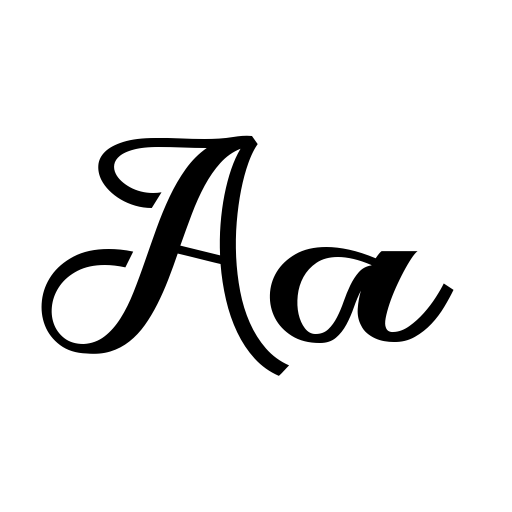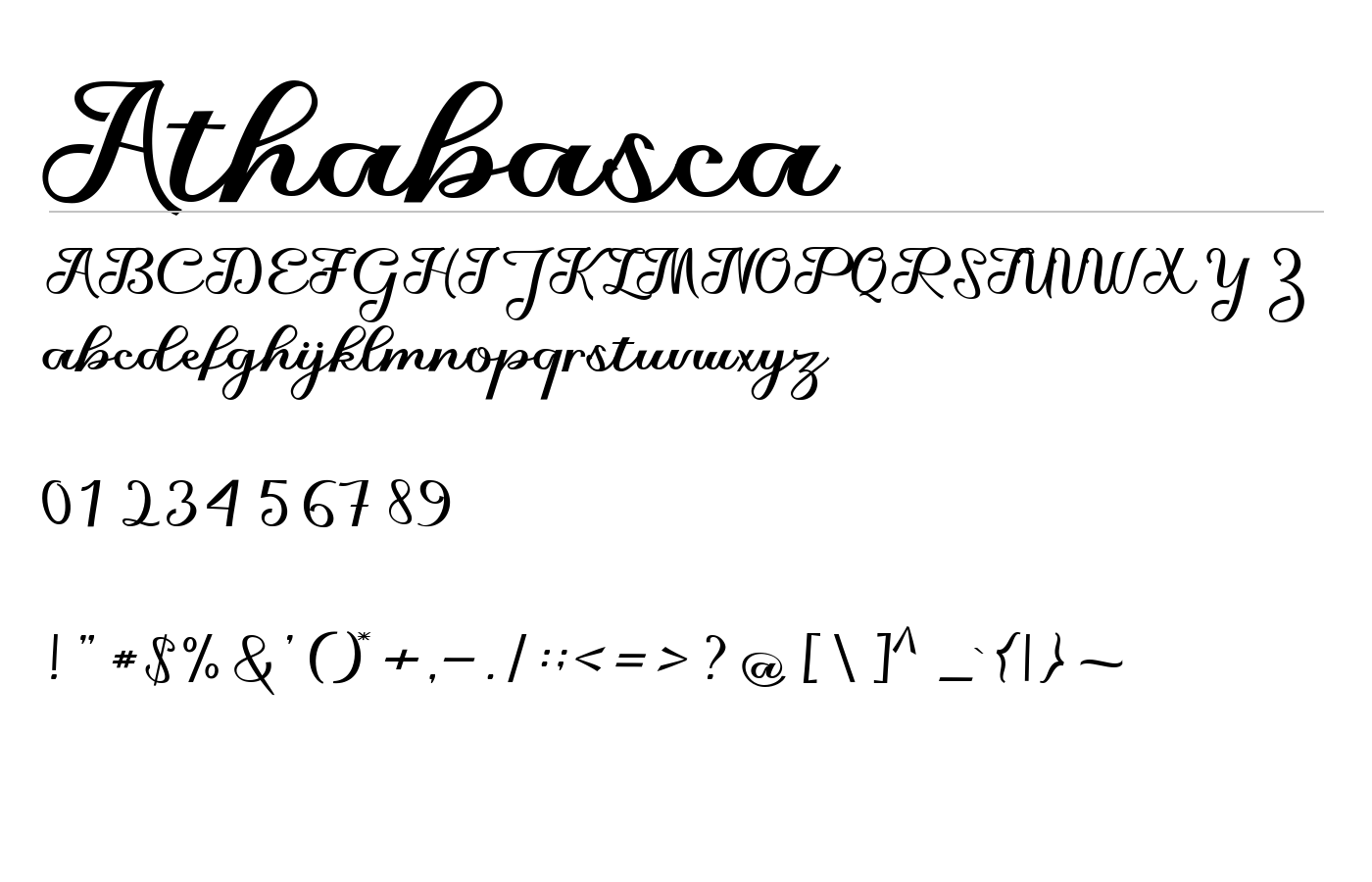
Athabasca is an elegant script font characterized by its flowing, connected letterforms and moderate contrast between thick and thin strokes. It conveys a refined and classic feel with its calligraphic curves and smooth, rounded shapes, making it ideal for wedding invitations, branding, or any design needing a touch of sophistication and charm. Its readable yet ornamental style suits headlines, logos, and decorative text where a graceful, personal touch is desired.
Athabasca Font
About Athabasca Font
| Font family | Athabasca Font |
| Designer | Staircase Studio |